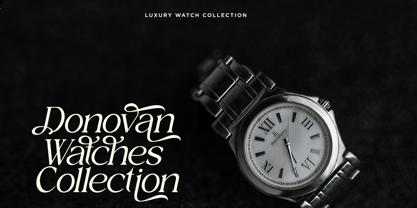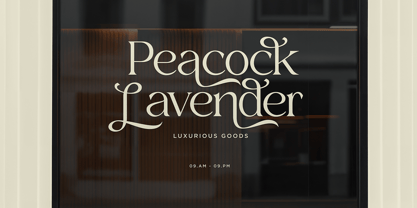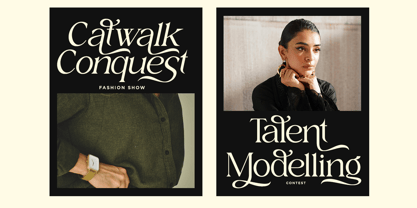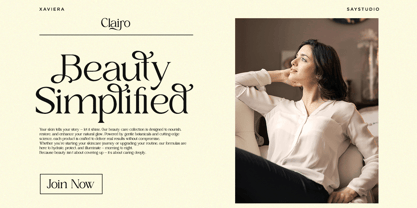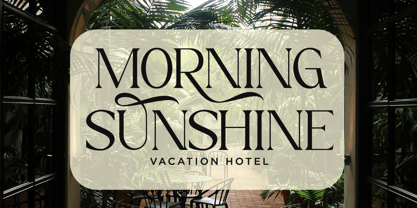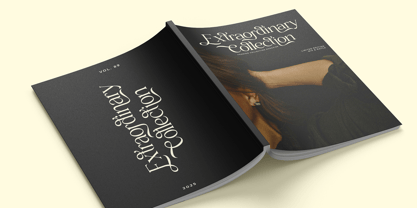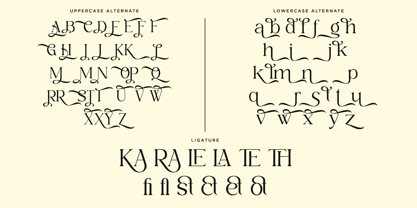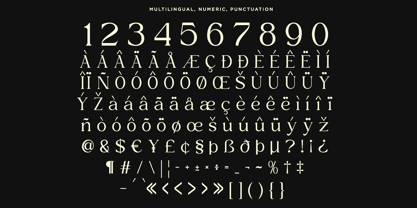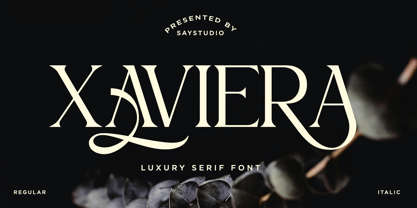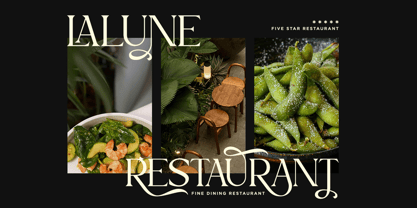
Xaviera
by Say Studio
The Xaviera Font Family was designed by Mussyayin and published by Say Studio. Xaviera contains 2 styles and family package options. More about this family
Introducing Xaviera – a font that captures the perfect harmony between modern elegance and timeless sophistication. Designed to enhance premium branding, Xaviera offers refined curves and stylish details, making it ideal for logos, invitations, and upscale marketing materials,
Perfect For:
Luxury brands, premium product packaging, elegant invitations, and marketing that demands style.
- Stylish Alternates
- Stylish Ligatures
- Multilingual Support
With Xaviera, your designs will exude class, confidence, and lasting appeal.